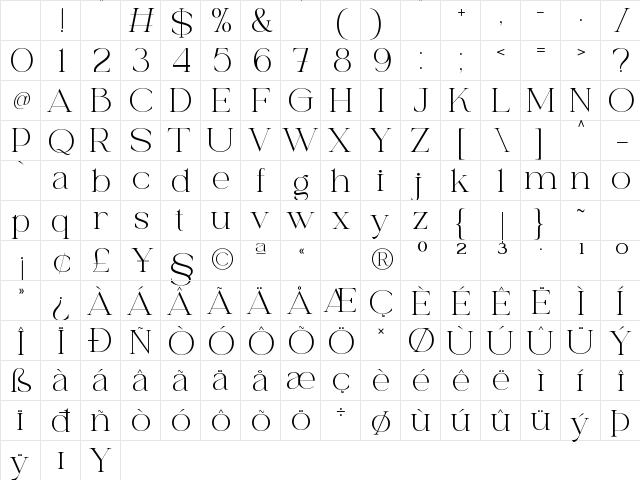
Complete Paris Forbel Regular glyph index. Displaying only characters natively supported by Paris Forbel Regular font.
Paris Forbel is a composed and adaptable typeface that performs quietly and consistently across a wide range of design contexts.